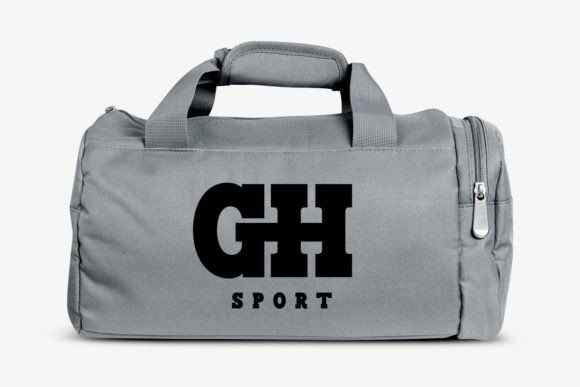
Liberty Font
Introducing “LIBERTY” – a commanding slab serif font meticulously crafted to capture the essence of American freedom and patriotism. With its bold strokes and timeless appeal, “LIBERTY” is the perfect choice for commemorating USA Independence Day, Military Day, and Veteran’s Day. Whether you’re crafting greeting cards, adorning decorations, or embellishing craft lettering and embroidery projects, this font lends an air of dignity and reverence to your designs.